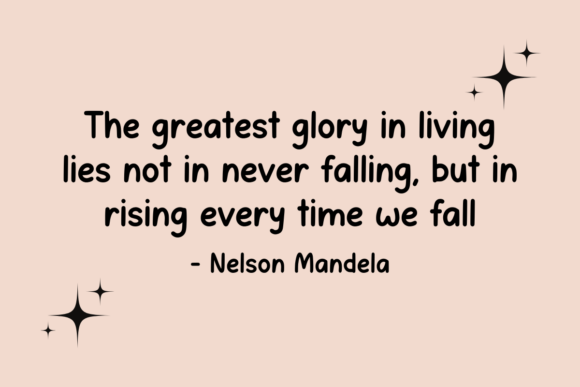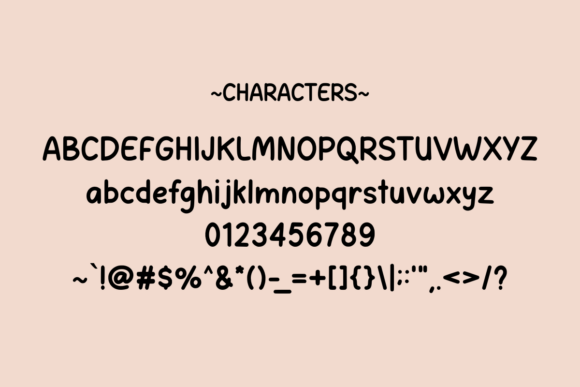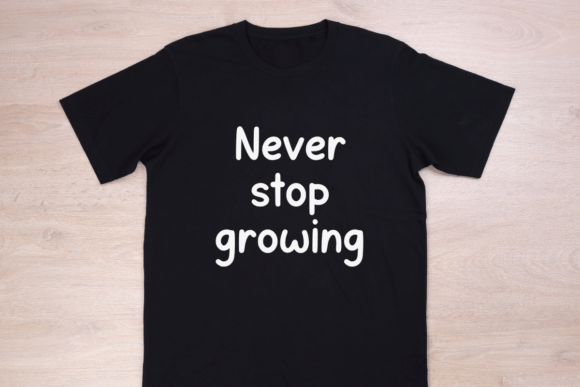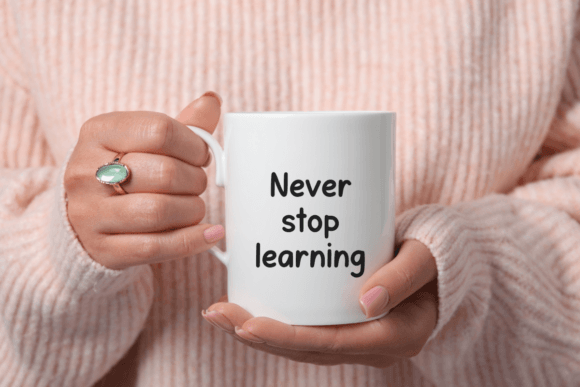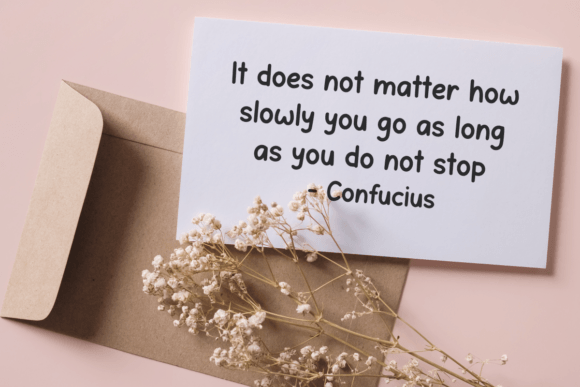
Introducing Flirty Feelings Font: The Perfect Addition to Your Design Projects
Are you a designer, crafter, or DIY enthusiast looking for a font that can add a touch of playfulness and charm to your projects? Look no further than the Flirty Feelings Font! This delightful sans-serif font is perfect for a wide range of uses, from personal to professional, and is sure to become a favorite in your design toolkit.
One of the standout features of the Flirty Feelings Font is its incredible versatility. This font is perfect for a variety of uses, including:
- Memorandums and memos
- Journals and notebooks
- Notes and to-do lists
- Planners and calendars
- KDP interiors and printables
- Scrapbooks and diaries
- Workbooks and templates
Whether you’re a teacher looking for a fun and engaging font for your classroom materials, or a professional designer seeking a stylish and modern font for your clients, Flirty Feelings Font is the perfect choice.
Perfect for Personal and Professional Projects
Flirty Feelings Font is ideal for both personal and professional projects. Add a touch of whimsy to your weekly and monthly planners, notebook paper, and journals. Use it to create eye-catching greeting cards, invitations, and scrapbook pages. This font is also perfect for:
- Daily planners and notepads
- Calendars and to-do lists
- Workbooks and educational materials
- Templates and printables
Why Choose Flirty Feelings Font?
So why choose Flirty Feelings Font over other fonts? Here are just a few reasons:
- Playful and charming: This font has a fun and playful vibe that’s perfect for adding a touch of personality to your designs.
- Versatile: Use it for a wide range of projects, from personal to professional.
- Easy to read: The clean and simple sans-serif design makes it easy to read, even at small sizes.
- Stylish: Add a touch of style and sophistication to your designs with this modern and trendy font.
Tips for Using Flirty Feelings Font
Here are a few tips for getting the most out of Flirty Feelings Font:
- Experiment with sizes and colors: Try out different font sizes and colors to add visual interest to your designs.
- Mix and match with other fonts: Combine Flirty Feelings Font with other fonts for a unique and stylish look.
- Use it for headings and titles: This font is perfect for headings and titles, adding a touch of personality to your designs.
Flirty Feelings Font is a versatile and stylish font that’s perfect for a wide range of design projects. Whether you’re a designer, crafter, or DIY enthusiast, this font is sure to become a favorite in your toolkit. With its playful and charming vibe, ease of use, and stylish design, Flirty Feelings Font is the perfect addition to your design projects. So why wait? Download Flirty Feelings Font today and start adding a touch of whimsy to your designs!